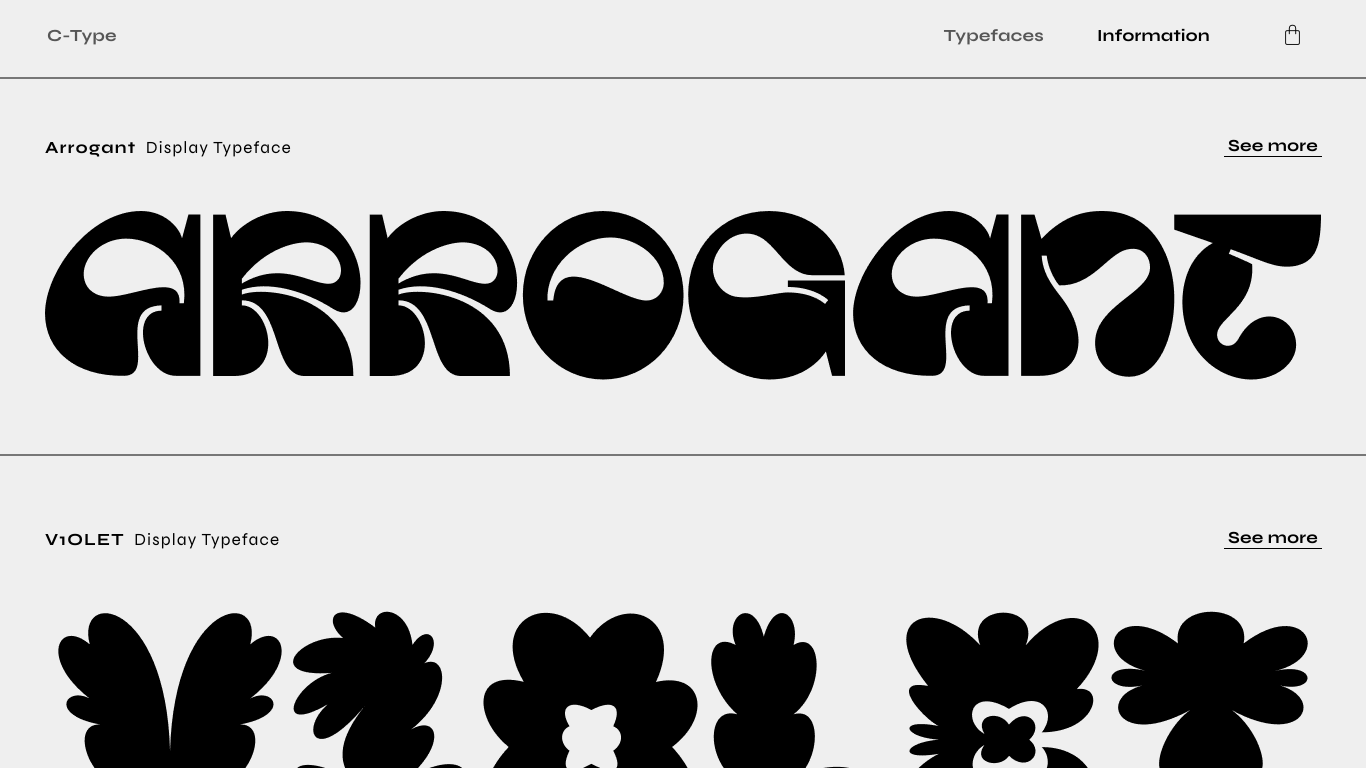
C-Type is an independent type foundry run by designer Carmen Nácher, specializing in bold and expressive display typefaces. Notable projects include 'Arrogant', a single-case typeface with expressive, rounded shapes, and 'Crysta', a display typeface inspired by organic forms like leaves and flowers.